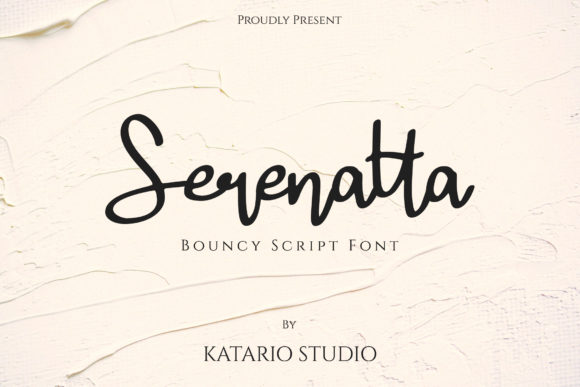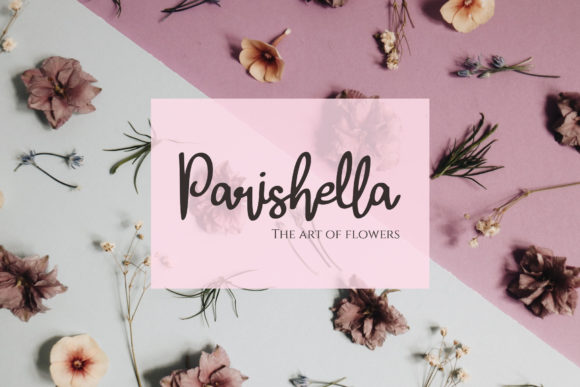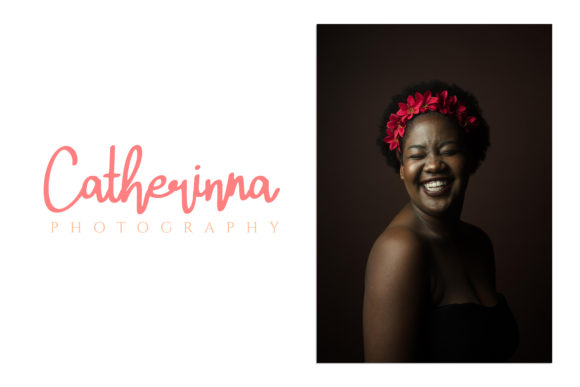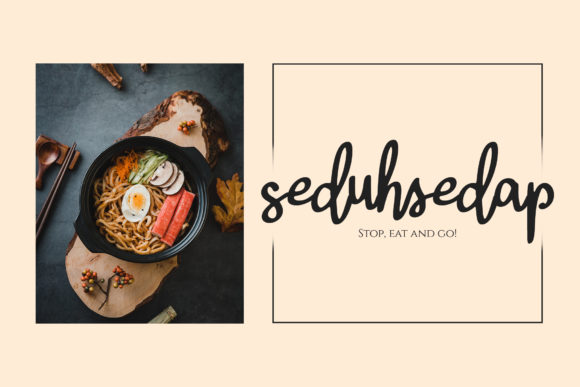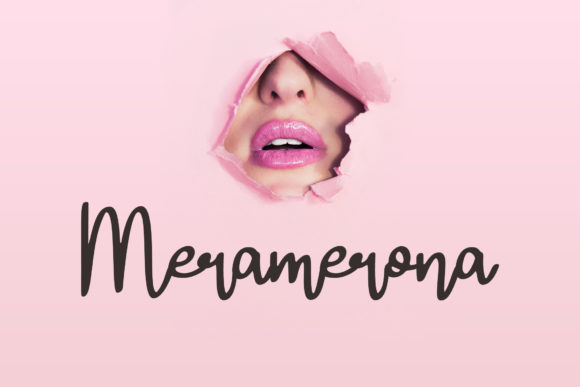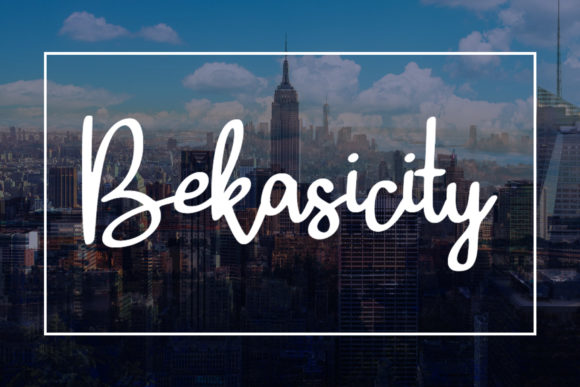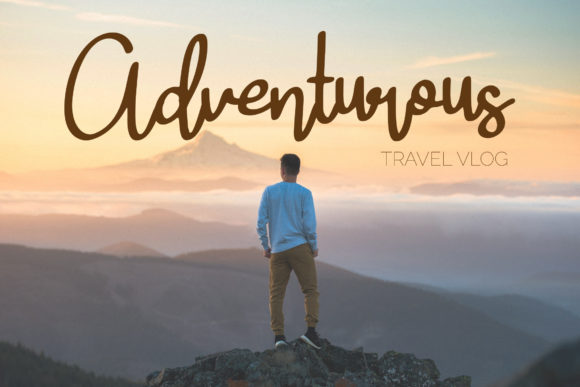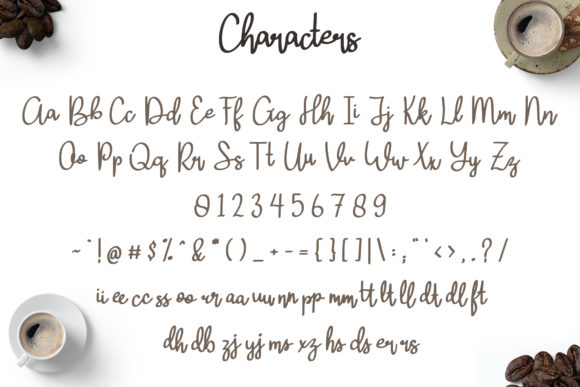
HomeScript FontsSerenatta Font Script Fonts Serenatta Font FacebookTwitterPinterestWhatsApp Serenatta Font Poster 2 Serenatta Font Poster 3 Serenatta Font Poster 4 Serenatta Font Poster 5 Serenatta Font Poster 6 Serenatta Font Poster 7 Serenatta Font Poster 8 Serenatta Font Poster 9 About Serenatta Font Serenatta is a casual script font. It has different ligatures that will make your designs look amazing! DOWNLOAD NOW People also explored Giugliamore Font Agatony Font Bunny Love Font Kelly Bella Canvas 3005 V Neck Mockup Monstruoso Font Jolly Holly Christmas Font History Font Marizta Font Gares Modern Sans Font 141 0 TagsSerenatta Font Previous articleAutograph FontNext articleVelta Font LEAVE A REPLY Cancel reply Comment: Please enter your comment! Name:* Please enter your name here Email:* You have entered an incorrect email address! Please enter your email address here Website: Save my name, email, and website in this browser for the next time I comment. Personal Use Free Diland Personal Use Free Read more about this font Adeline Personal Use Free Read more about this font Satori Personal Use Free Read more about this font Shawaki Personal Use Free Read more about this font BLOG Best Fonts for T-Shirt Design – Top 2025 Picks In 2025, t-shirt design has become more than just fashion—it's a form of self-expression. Whether you're... To increase your work productivity, choose the most readable fonts. Using Fonts in Digital Marketing: Tips to Strengthen Your Brand Identity The 10 Best Handwriting Fonts to Add Personality to Your Designs